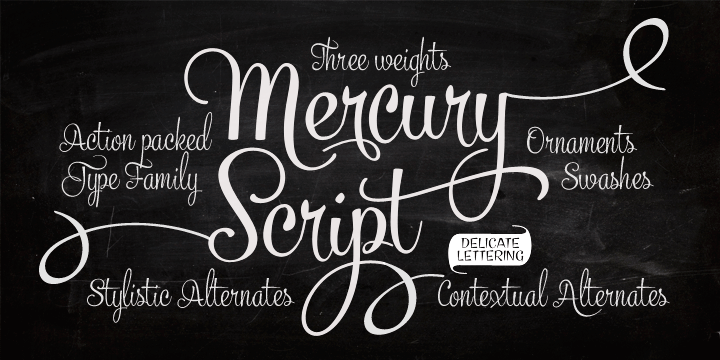
Mercury Script
Mercury Script is a dynamic type family that comes in 3 weights. All you require doing is to click on the following alternates in any of the following Open Type savvy application and you will be treated with the additional grooviness: Swash Contextual Stylistic You can also use this in combination with Mercury Ornaments to … Read more